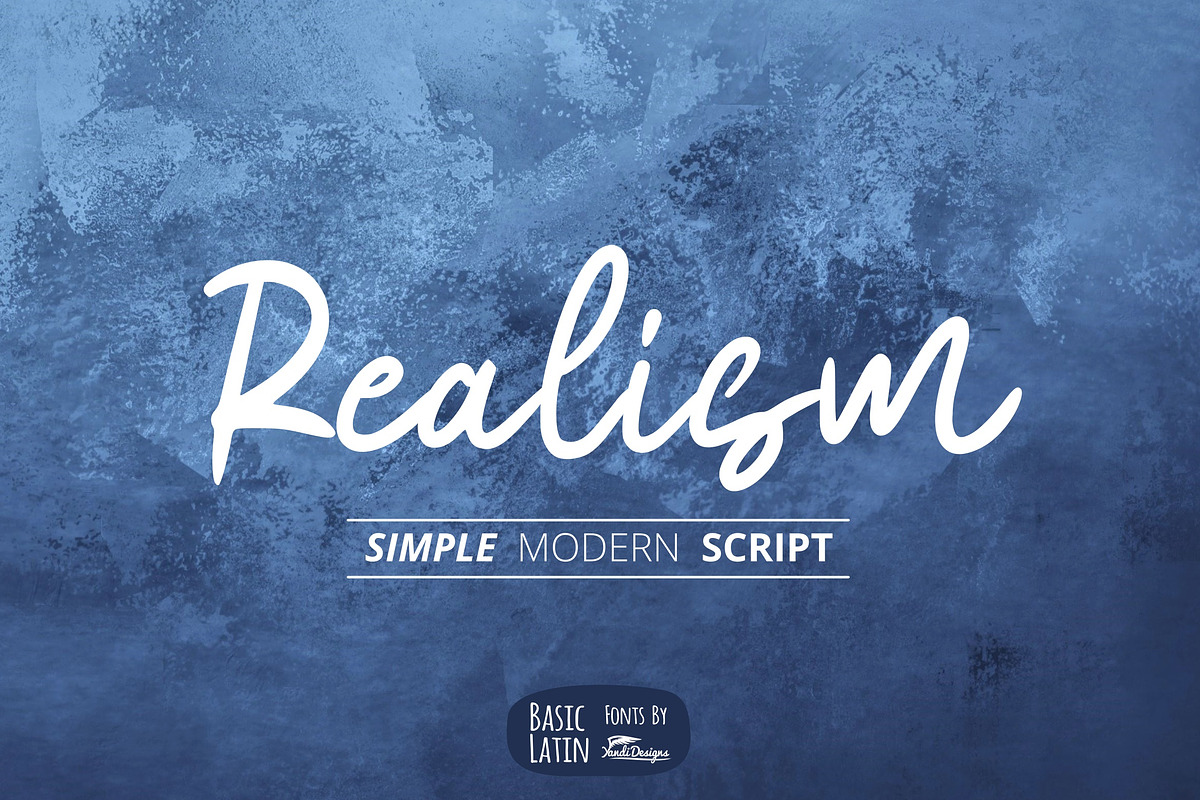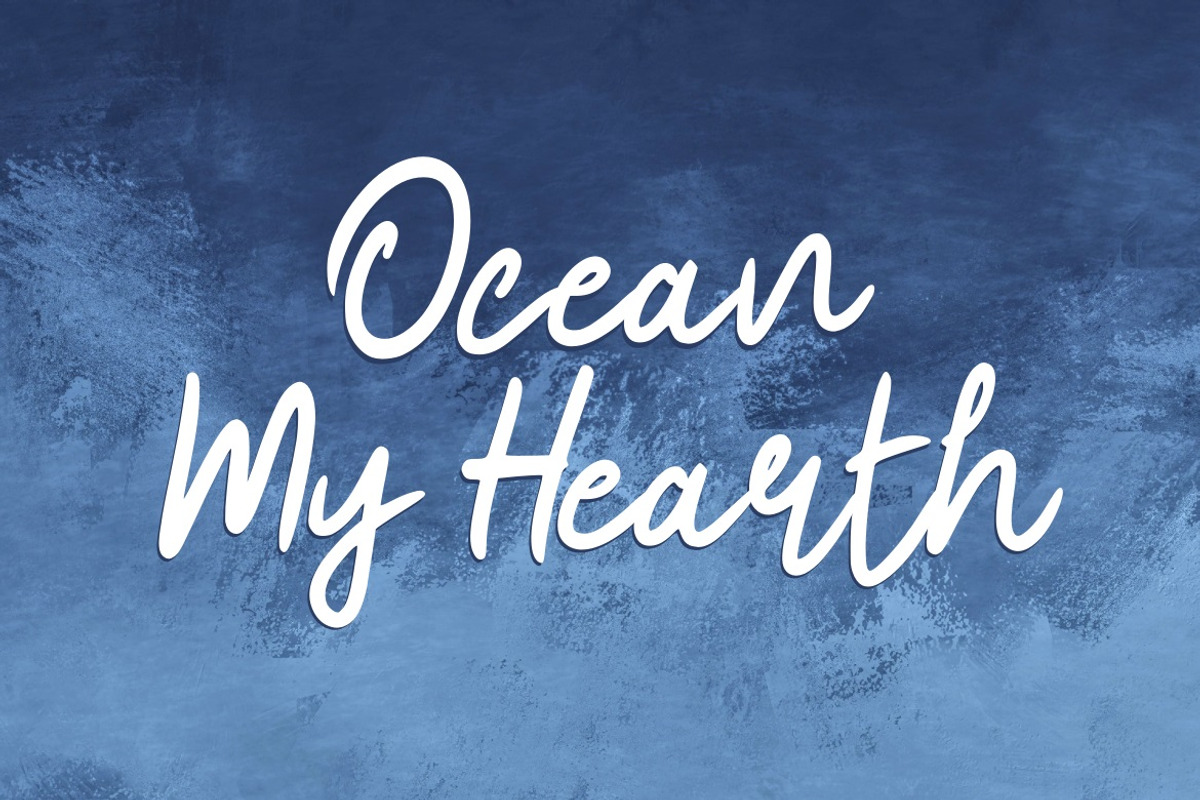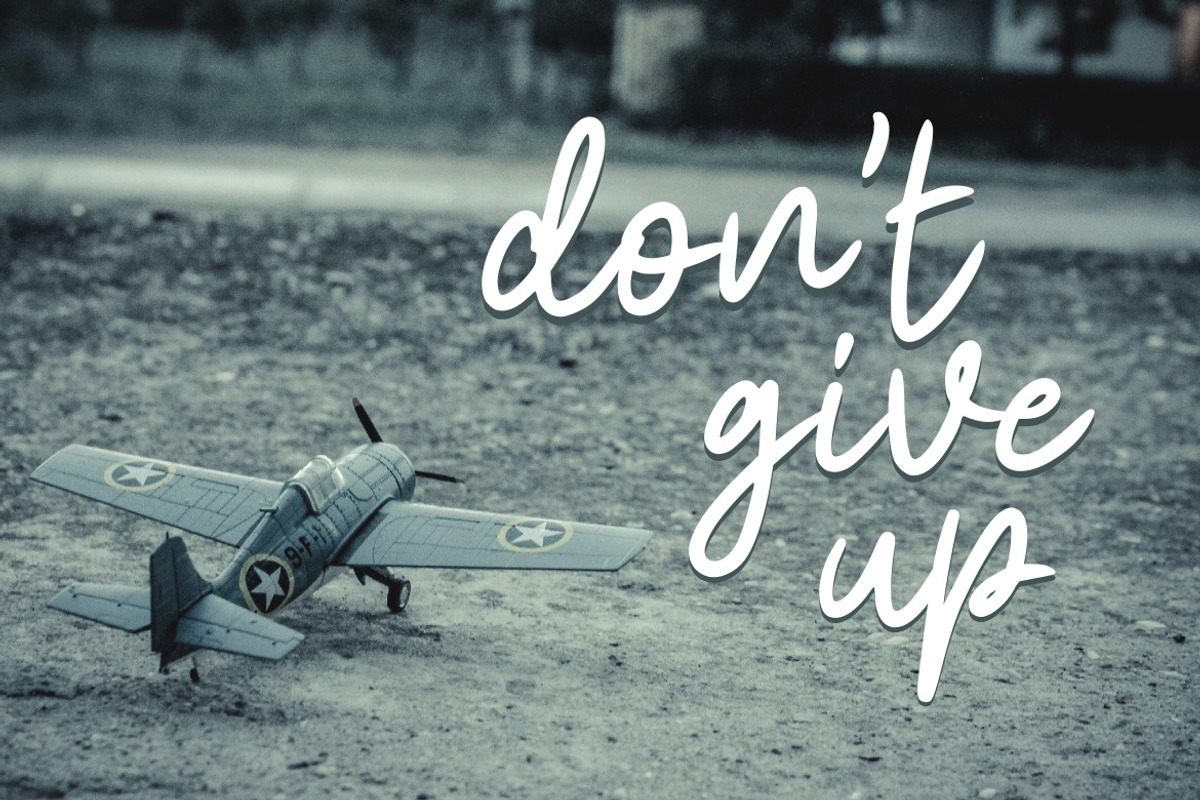
Realism Font
Simple and modern script , suitable for many project , quotes, logo , doodle, heading , title etc.
Why Realism Font is worth a look
Realism Font by YandiDesigns fits naturally into Branding, posters, packaging, typography.